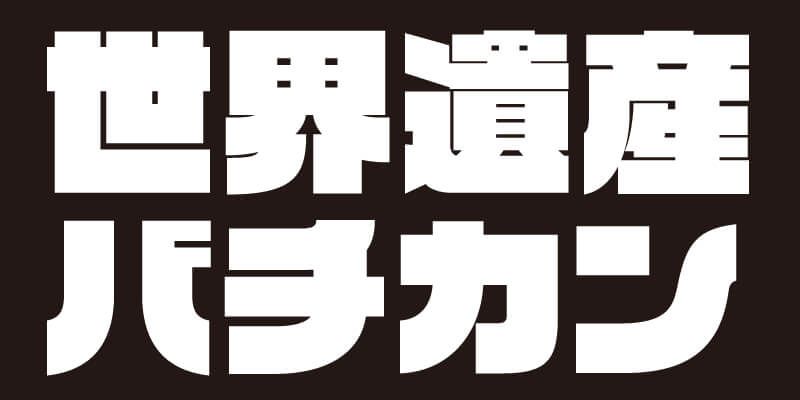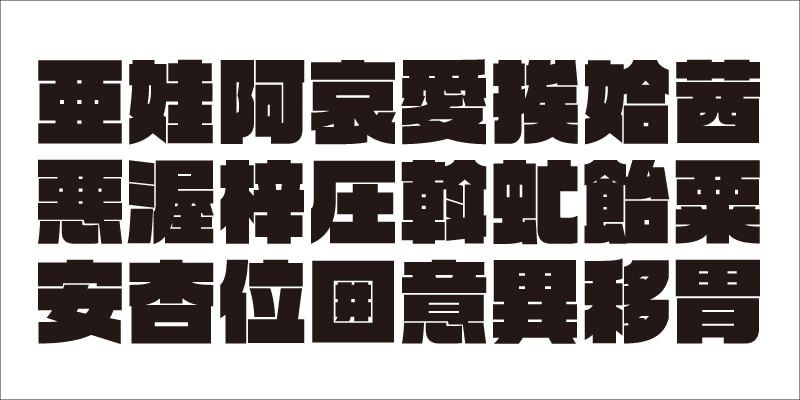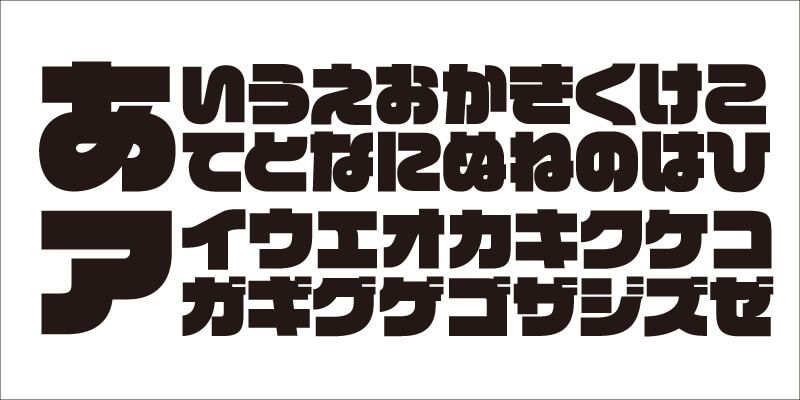
VDL-LogoJrBlack is based on the basic letter forms of VDL-LogoJr, but with a maximized stroke weight. It is a ultra-heavy gothic (sans-serif) typeface. In particular, its kana syllabic characters have a very dynamic and freewheeling style to attract the viewer’s attention, while still retaining a good level of legibility from the aesthetically well-balanced formation of character shapes. VDL-LogoJrBlack was one of the prize-winning designs at the ATypI Letter.2 Competition in 2011 and at the New York TDC2 Competition in 2008.